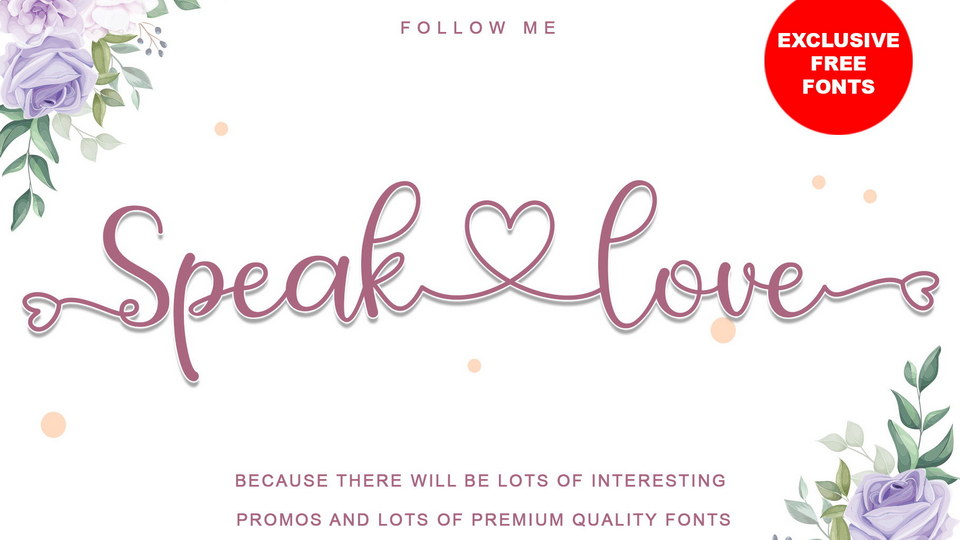
Speak Love Font. Web by dafont december 24, 2023. Speak love is a spectacular and beautiful calligraphy script font with a cool graffiti style.
Web by dafont december 24, 2023. Speak love is a spectacular and beautiful calligraphy script font with a cool graffiti style.
Speak love is a spectacular and beautiful calligraphy script font with a cool graffiti style. Speak love is a spectacular and beautiful calligraphy script font with a cool graffiti style. Web by dafont december 24, 2023.